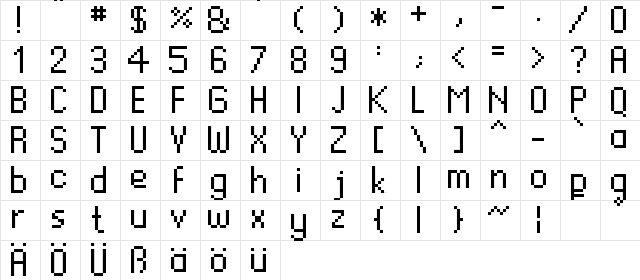
Aurora Regular
Design Context for Aurora
Aurora is a composed and adaptable typeface that performs quietly and consistently across a wide range of design contexts.